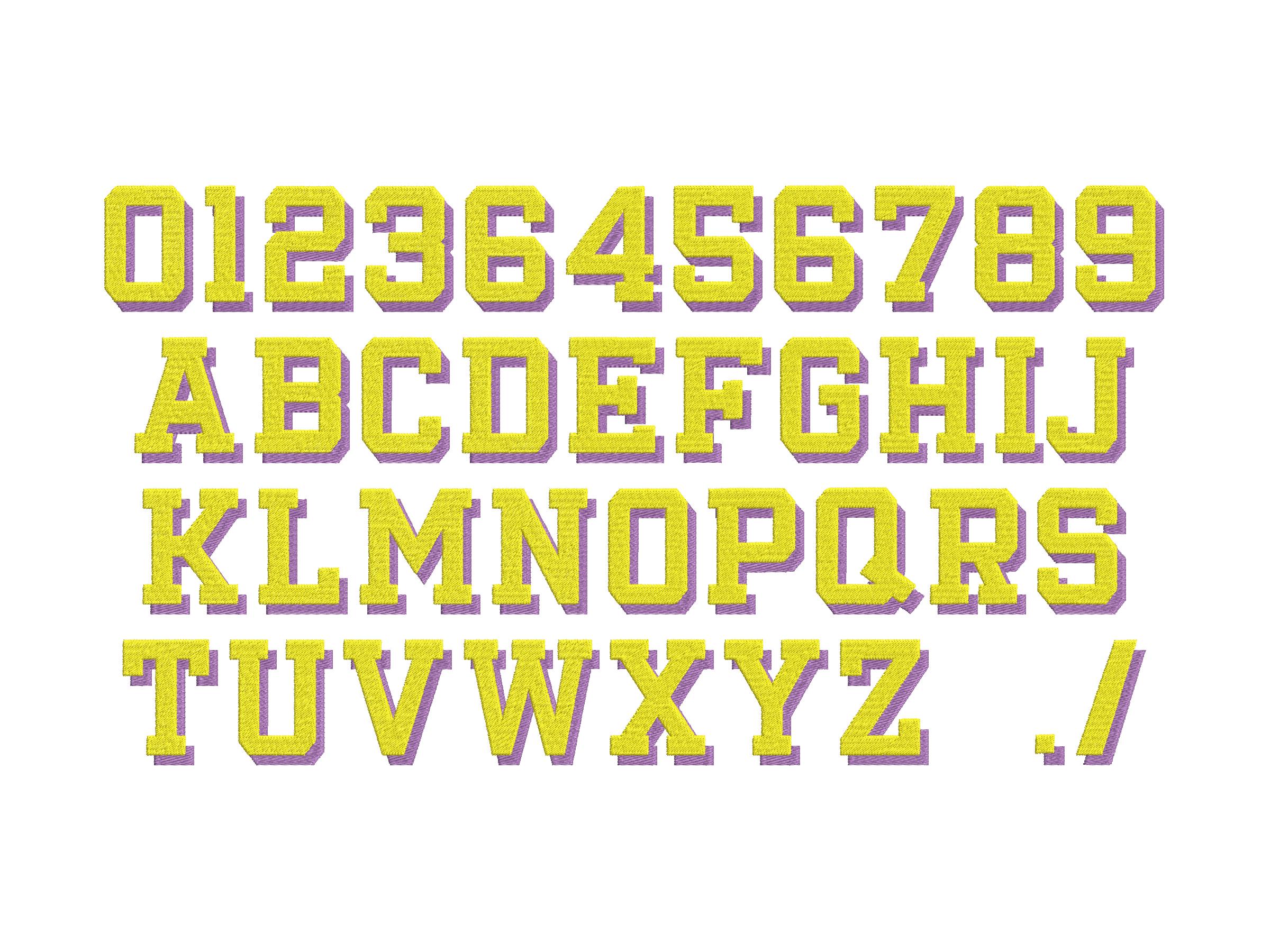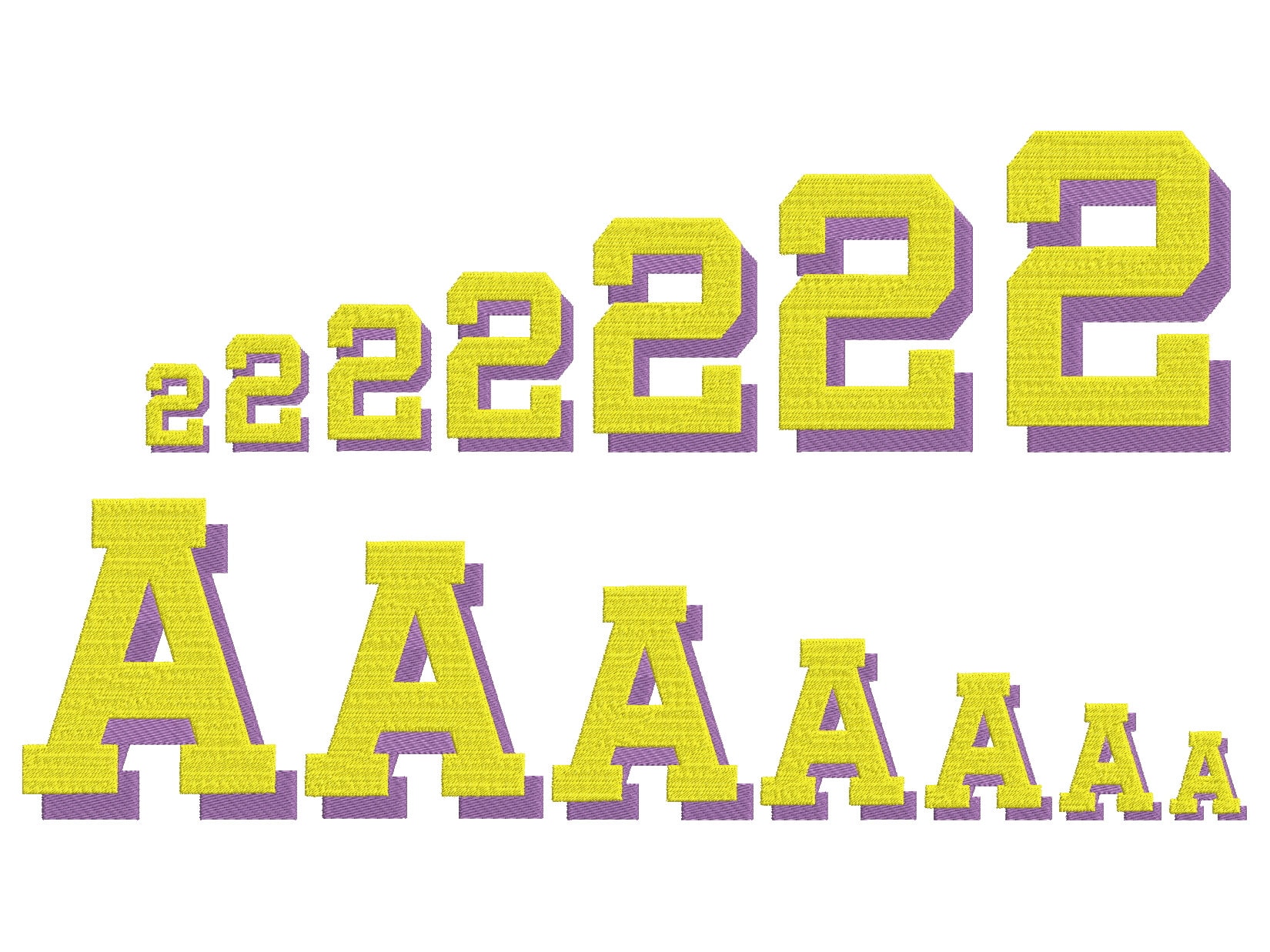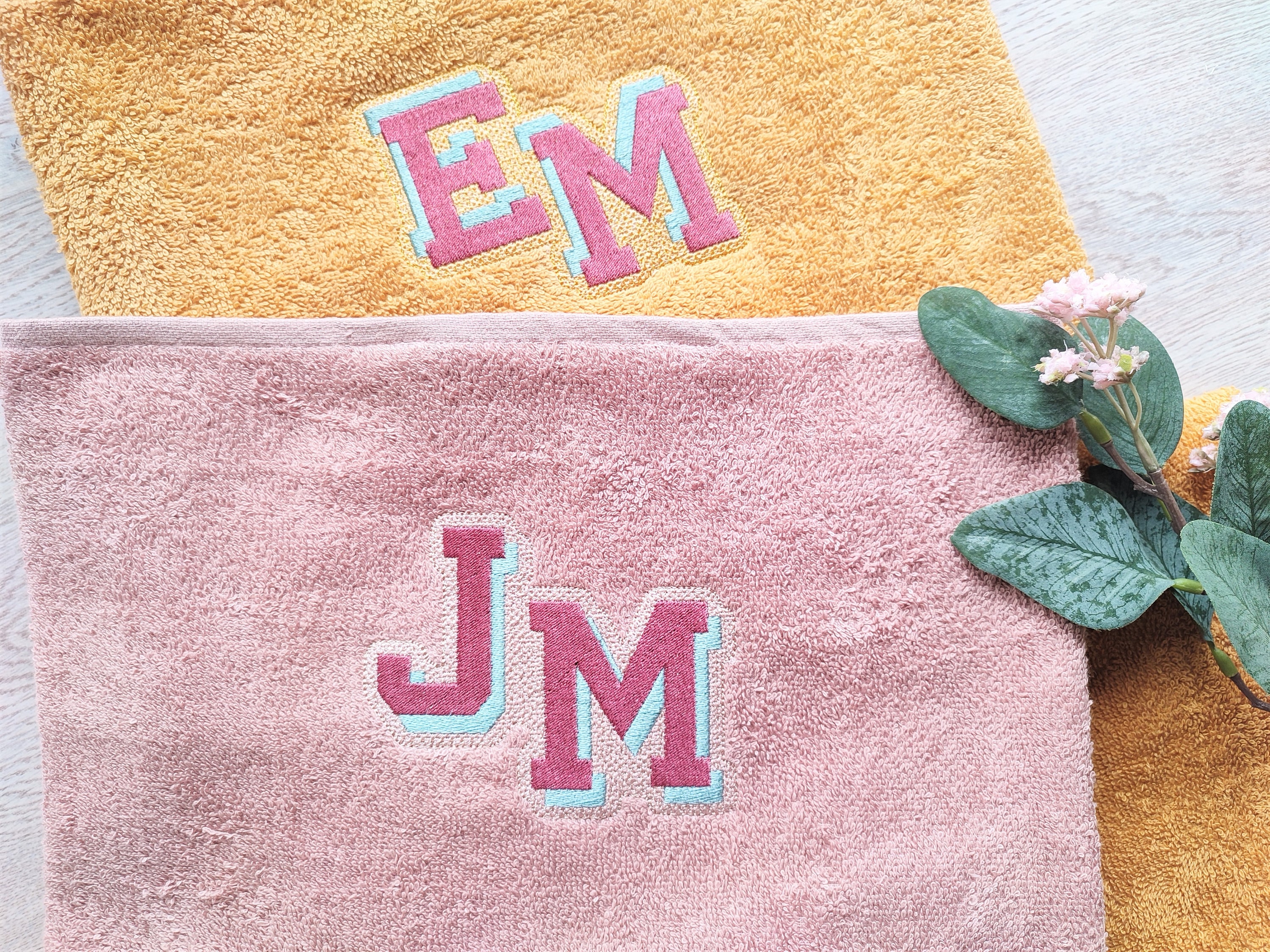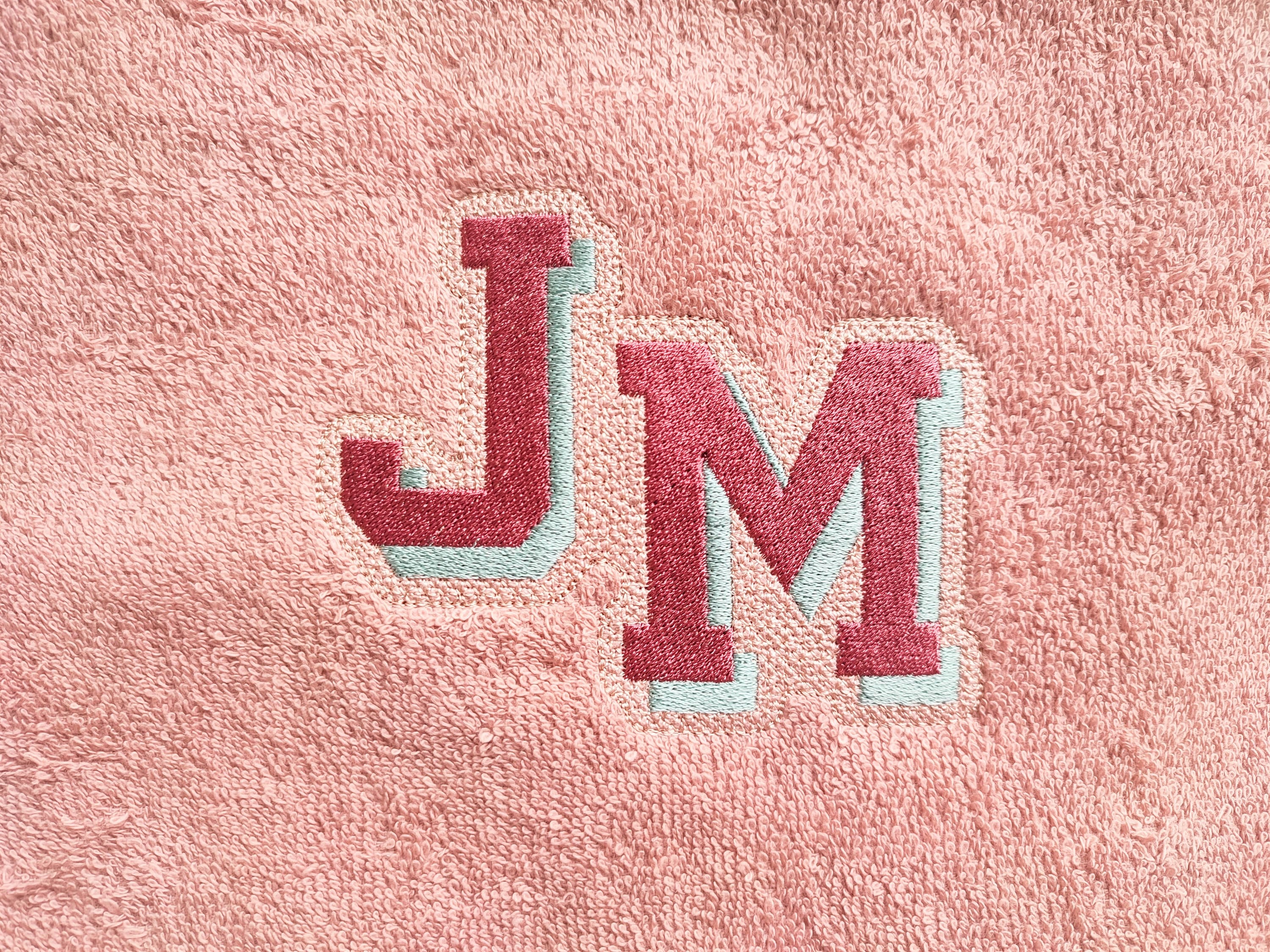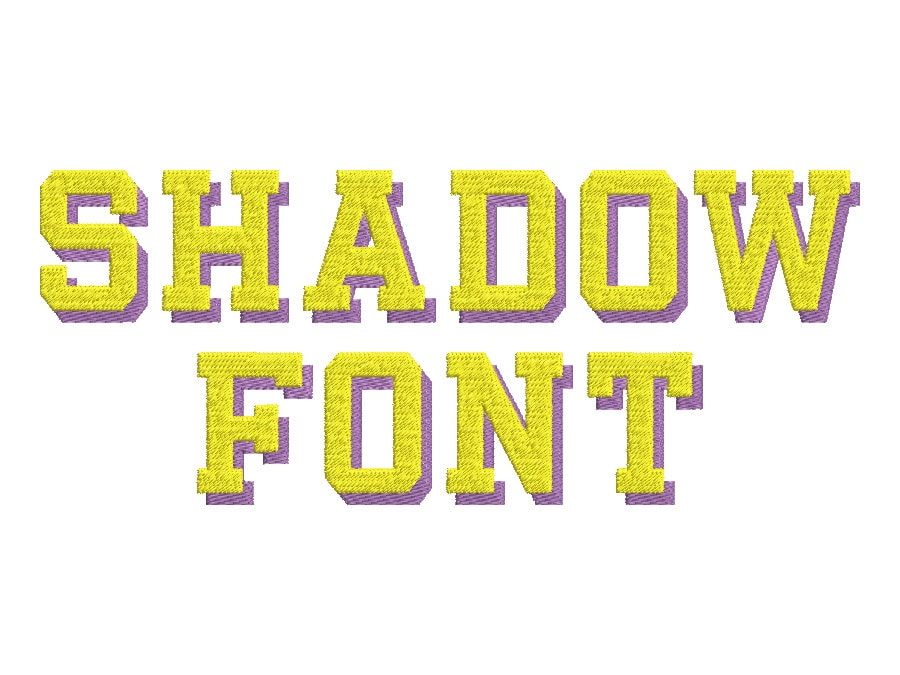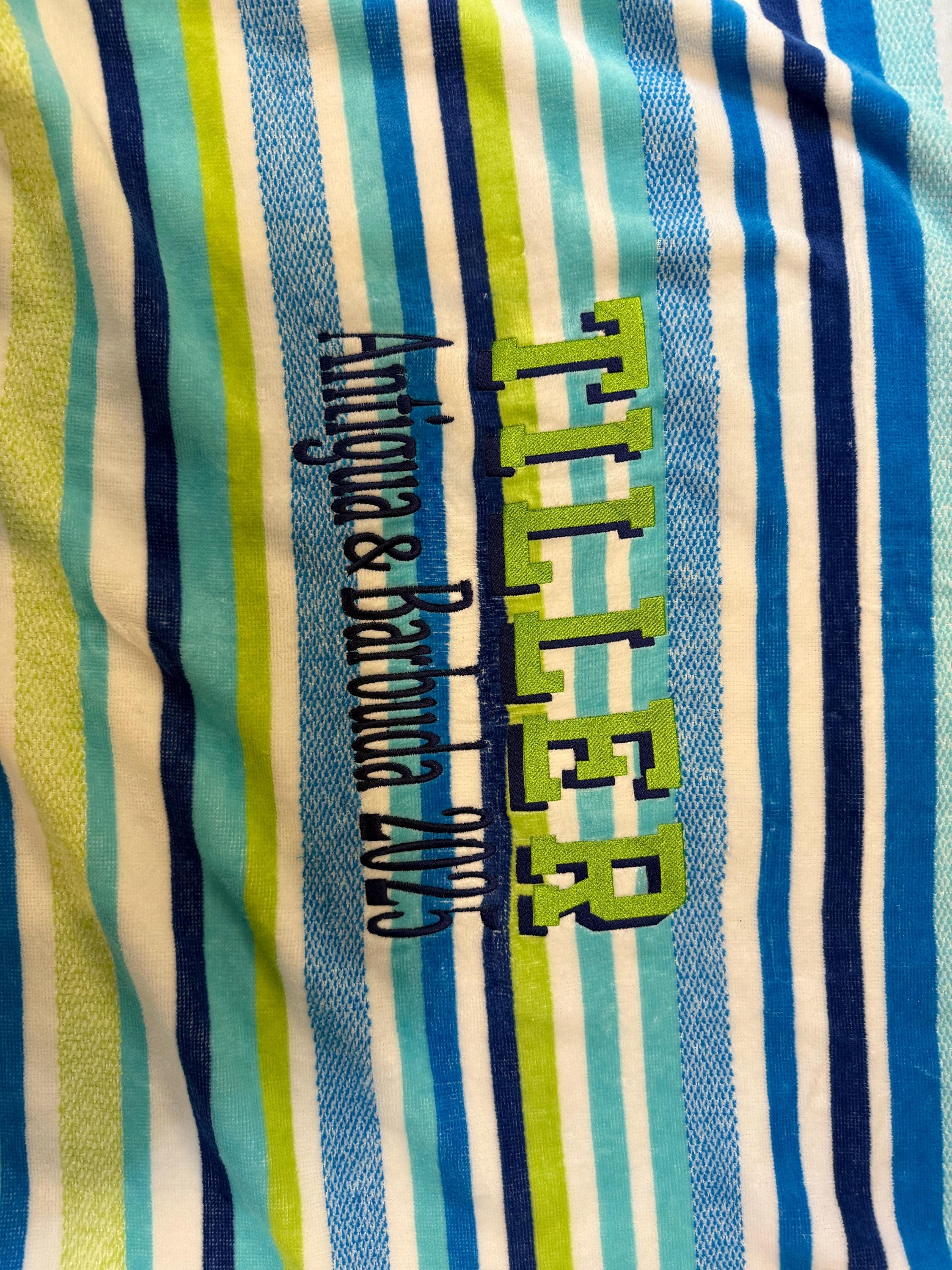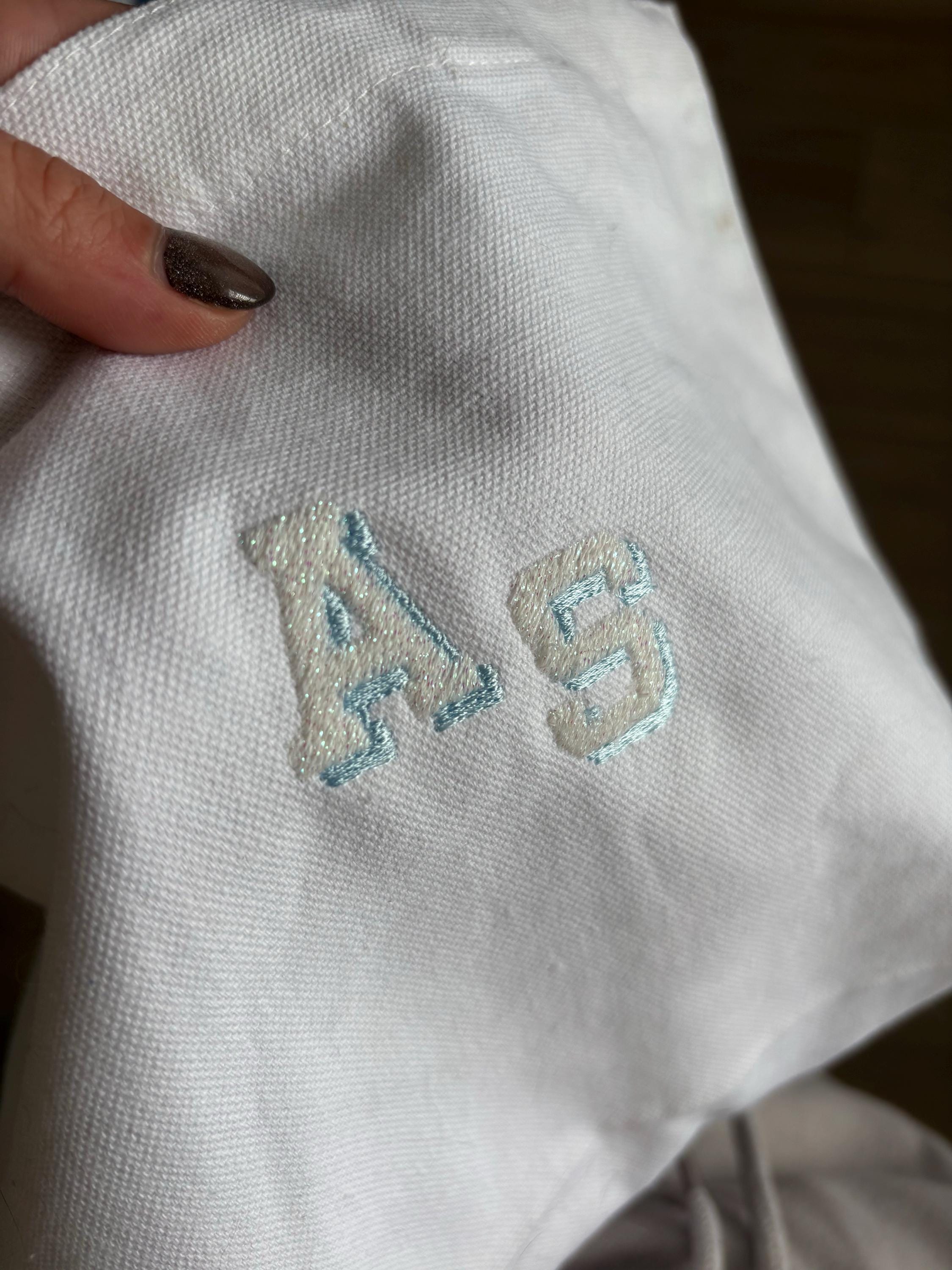
Block type Shadow Font fill stitch machine embroidery designs assorted sizes, sport letters numbers punctuation marks with shadow, BX font included
Whole alphabet A-Z uppercase letters,
numbers 0-9 and special punctuation marks, dot and slash . /